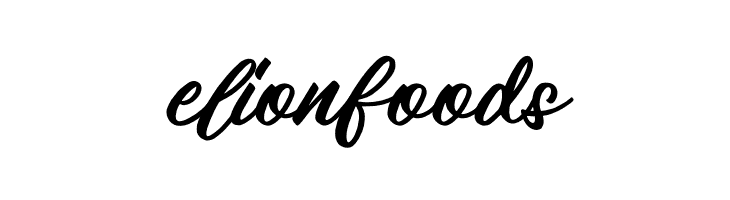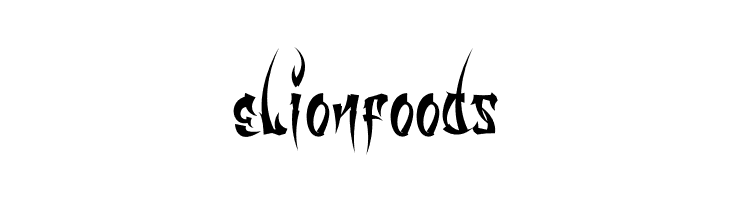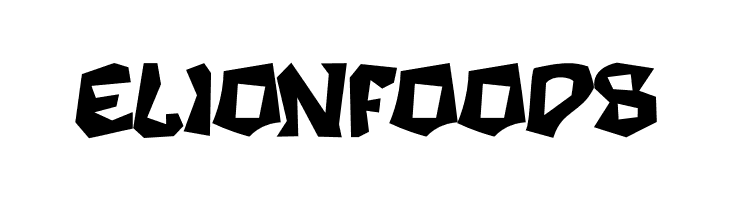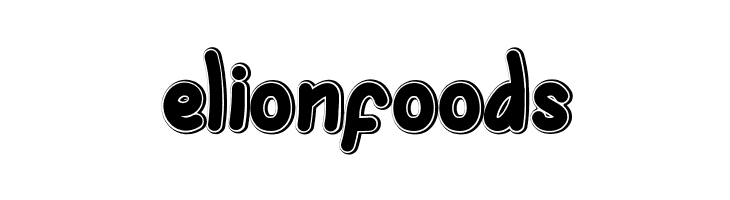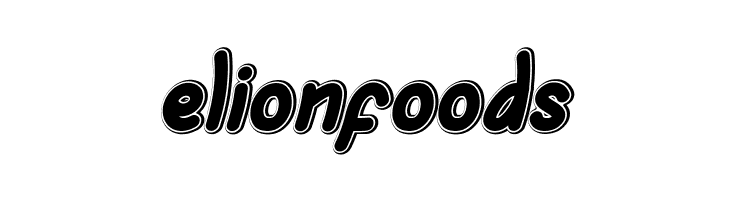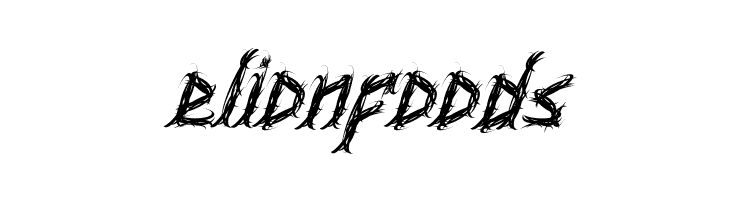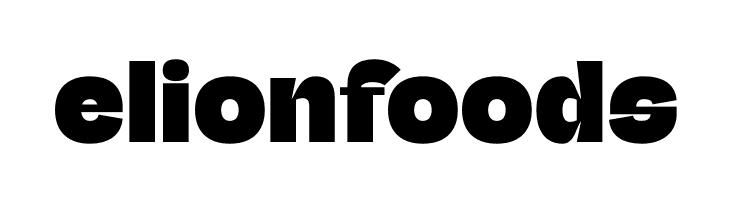
A decorative, thorny, and italicized font with a bold and edgy appearance.
A whimsical, hand-drawn font with a playful and organic style.
A bold, angular font with a dynamic and geometric style.
A bold, edgy font with sharp, angular edges and a graffiti-inspired style.
A bold, modern font with thick, blocky characters perfect for impactful headlines.
A bold, gothic-inspired font with sharp, jagged edges and dynamic styling.
A bold, elegant script font with interconnected characters and a sophisticated style.
A dynamic and energetic script font with fluid, angular strokes.
A bold, playful font with rounded strokes and a three-dimensional outline.
A bold, playful italic font with a thick outline and rounded characters.